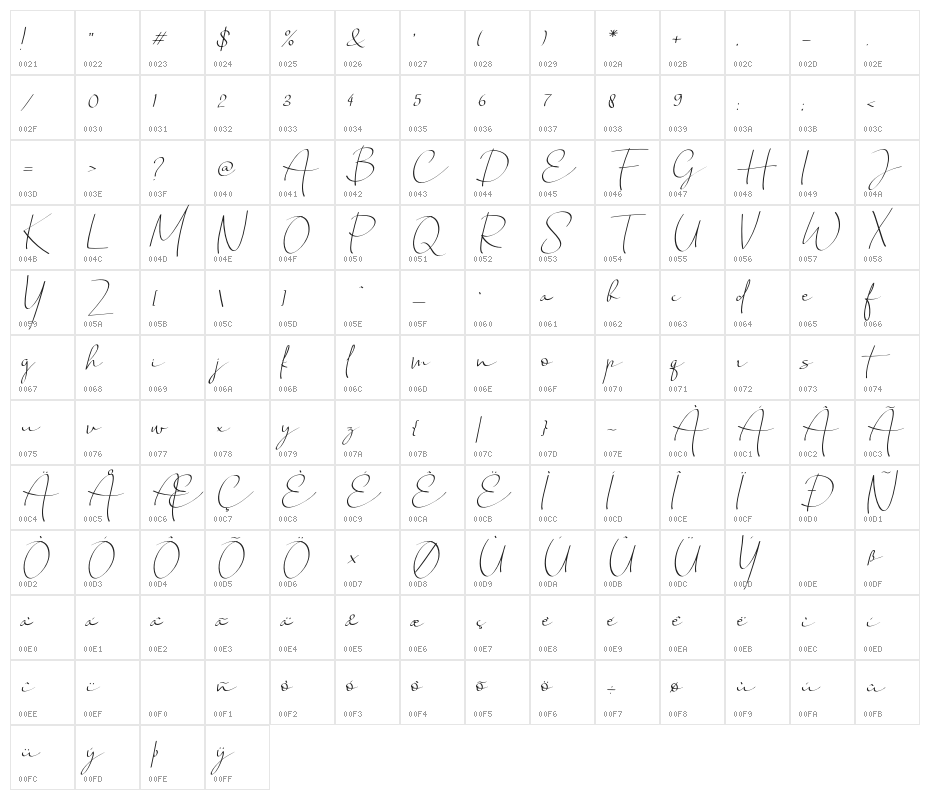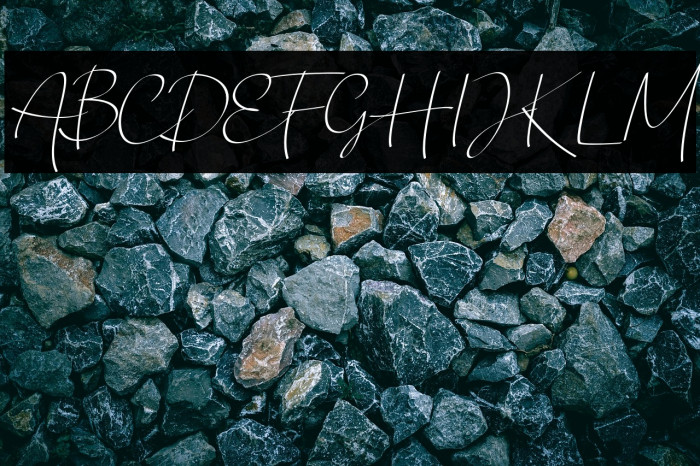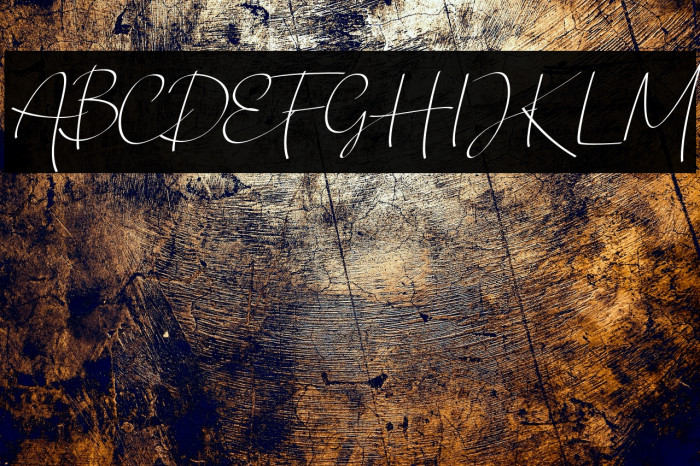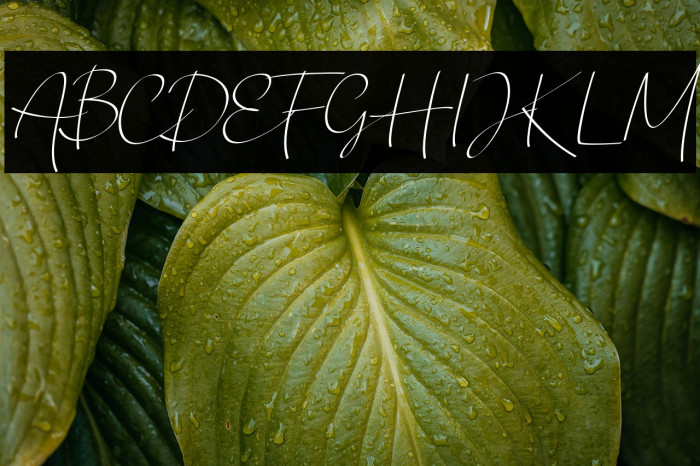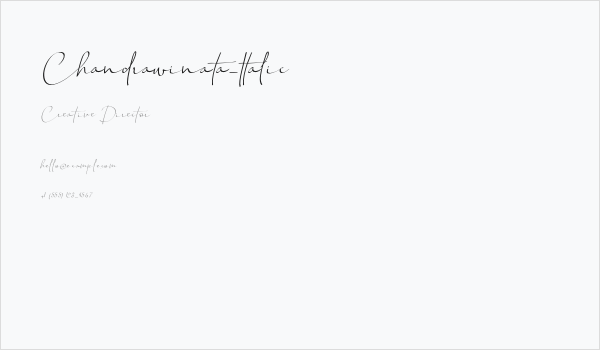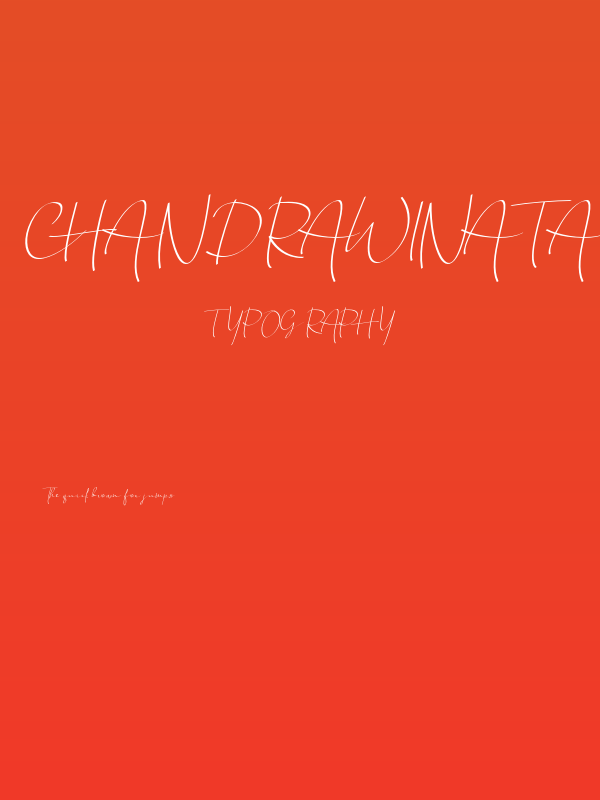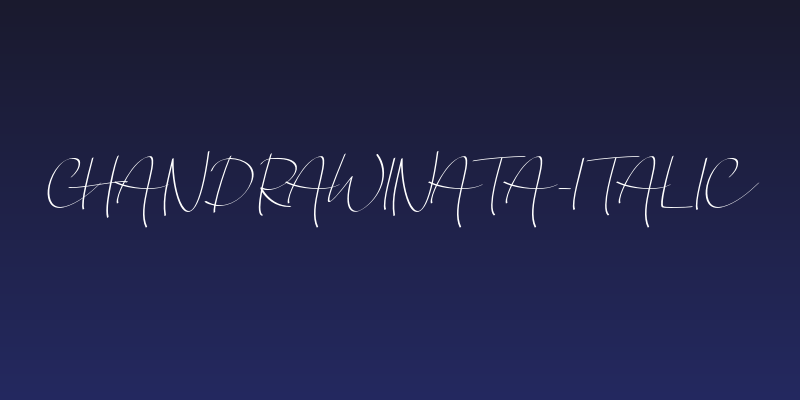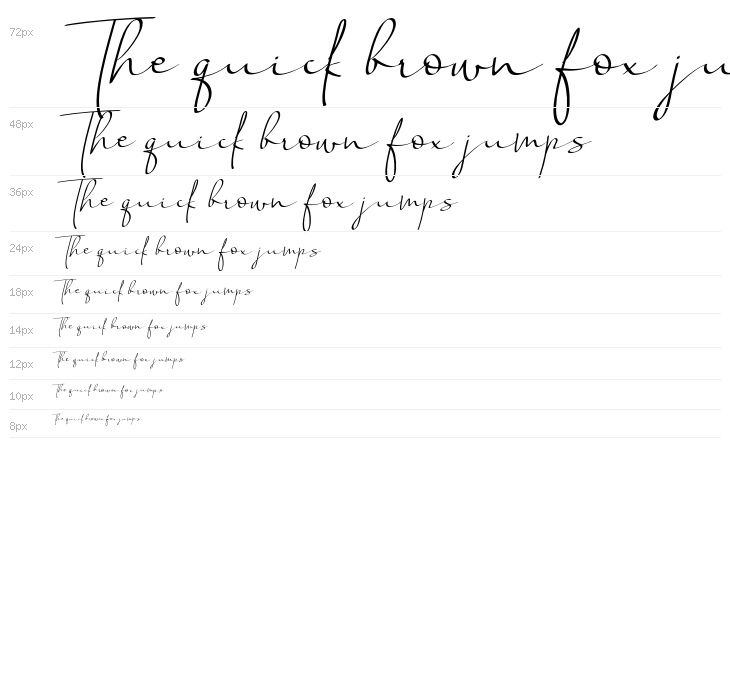
Chandrawinata-Italic Font
Chandrawinata-Italic Description
This font exhibits a graceful and flowing script style, characterized by its elegant and fluid strokes. The uppercase letters are tall and slender, with a slight slant that adds a dynamic feel. The lowercase letters are equally elegant, with smooth curves and a consistent flow that enhances readability. The numerals are stylish and maintain the overall aesthetic of the font, while the special characters are thoughtfully designed to complement the script style. This font's delicate and artistic appearance makes it suitable for creative and expressive projects.
| Overall Style | Elegant, Artistic |
| Proposed Projects | Ideal for wedding invitations, greeting cards, branding, and artistic projects that require a touch of elegance and sophistication. |